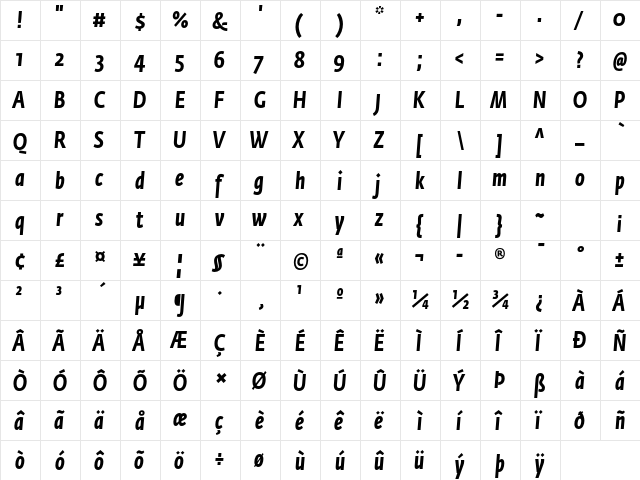
Fedra Sans Condensed Std Bold Italic Font Preview
| Foundry | Typotheque type foundry |
| Designer | Peter Bilak https://www.typotheque.com) |
Design Context for Fedra Sans Condensed Std Typeface
Fedra Sans Condensed Std is a composed and adaptable typeface that performs quietly and consistently across a wide range of design contexts. The slanted form adds forward momentum and visual energy. Its bold stroke weight gives it real presence on the page. The condensed width makes it efficient for tight spaces without sacrificing legibility.
Pro Tip: Use Fedra Sans Condensed Std for emphasis, pull quotes, and subheadings where its slanted energy can add rhythm to the layout.